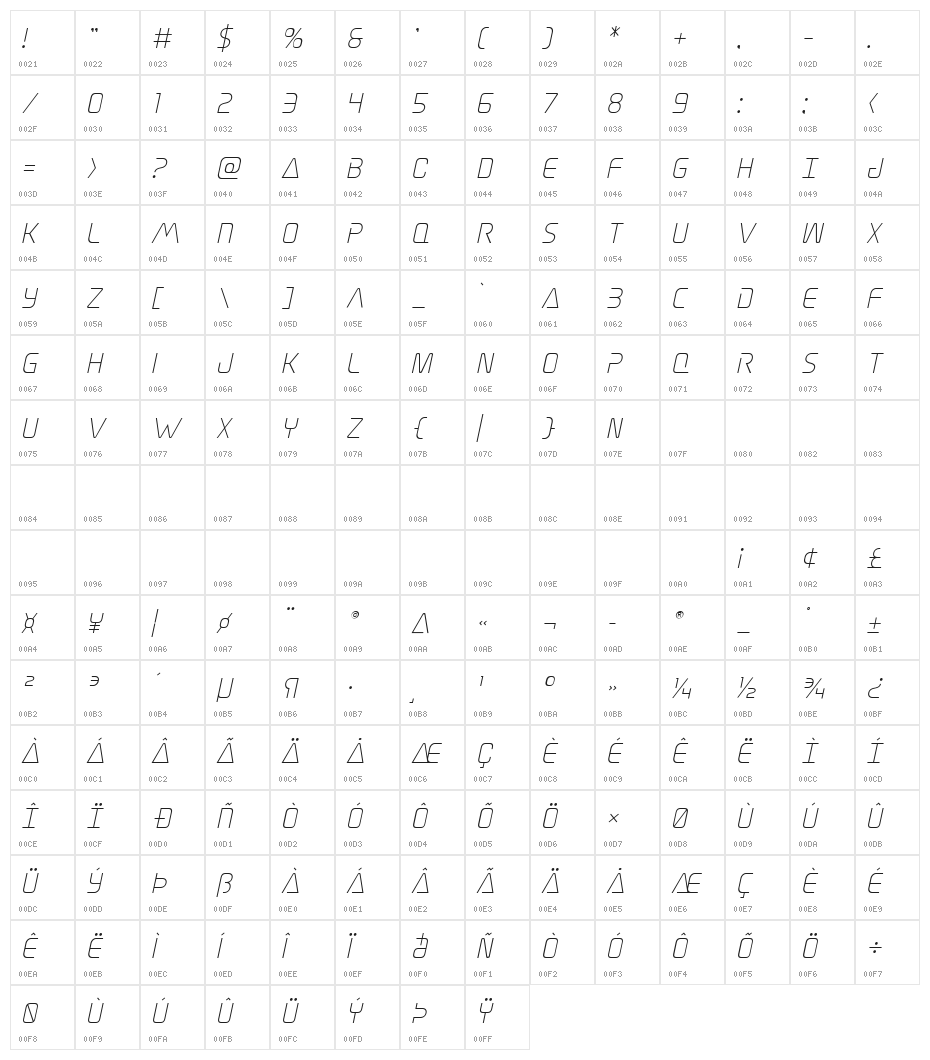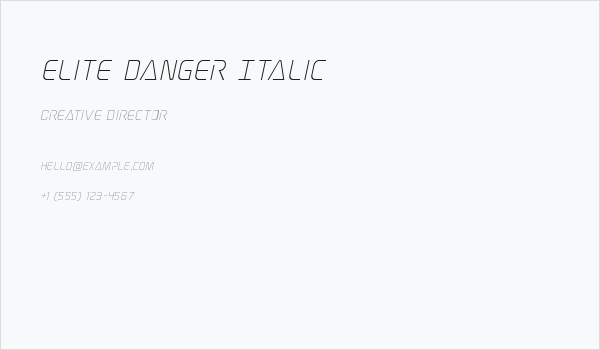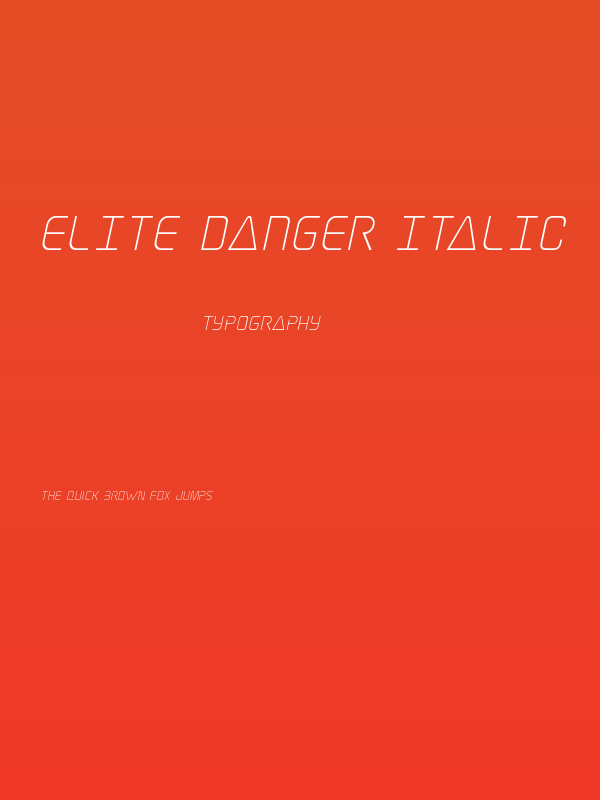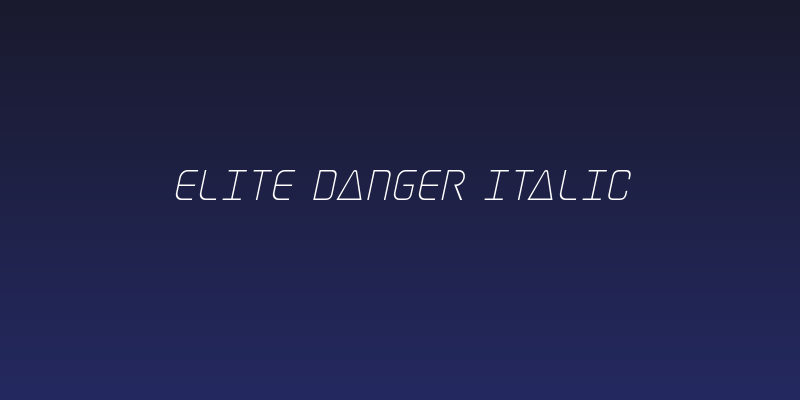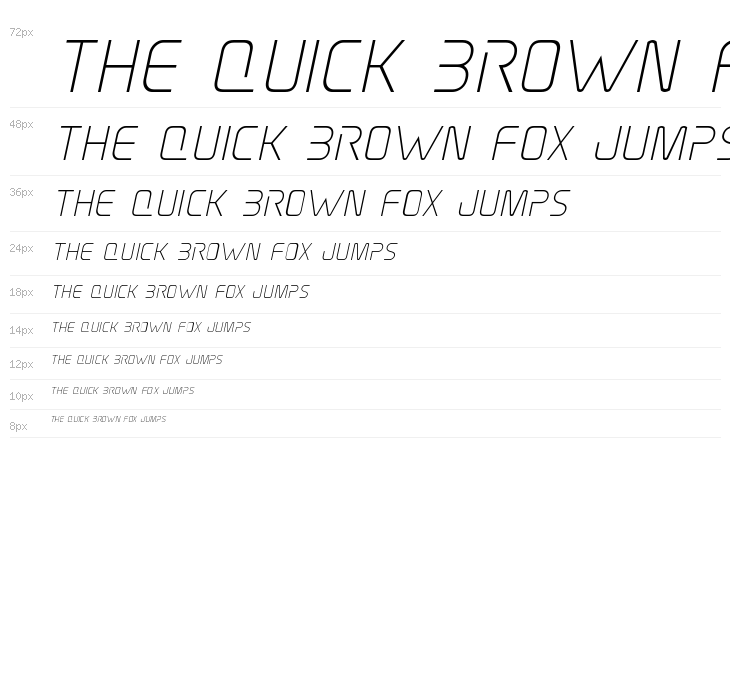
Elite Danger Italic Font
Elite Danger Italic Description
This font features a sleek, modern design with a futuristic flair. The characters are slightly italicized, giving them a dynamic and forward-leaning appearance. The lines are clean and geometric, with a consistent stroke width that maintains a uniform look across all characters. The uppercase and lowercase letters are distinct yet harmonious, while the numerals and special characters complement the overall style. This font's minimalistic and streamlined design makes it suitable for a variety of digital and print applications.
Use CaseHeadlines, Logos, Digital interfaces
Proposed ProjectsIdeal for tech branding, sci-fi themed projects, digital interfaces, and modern advertising.